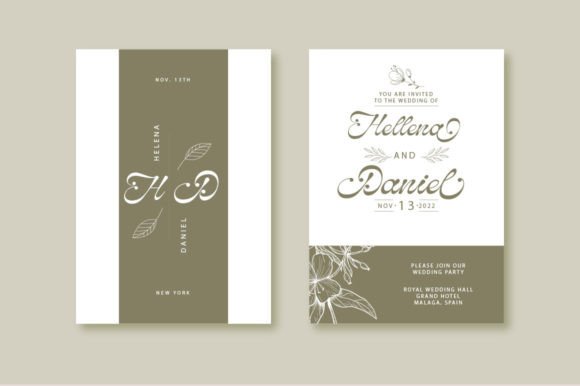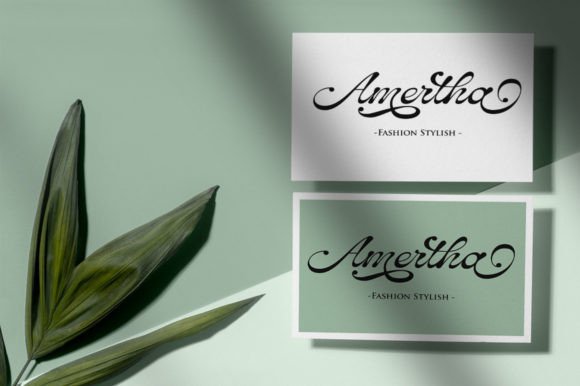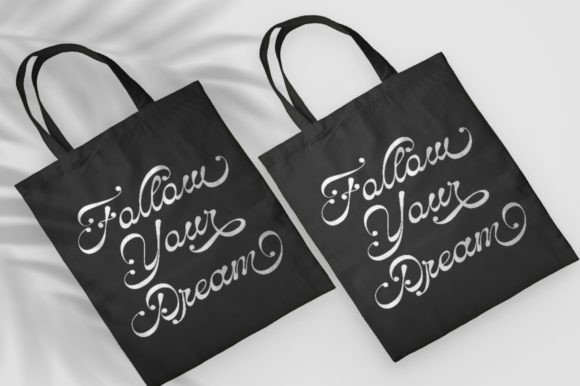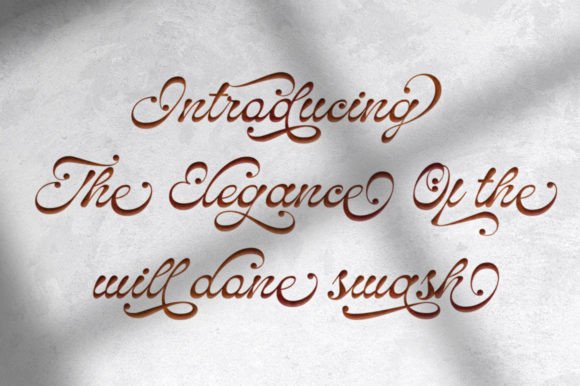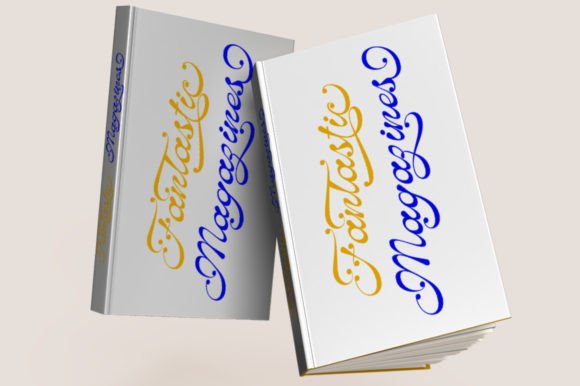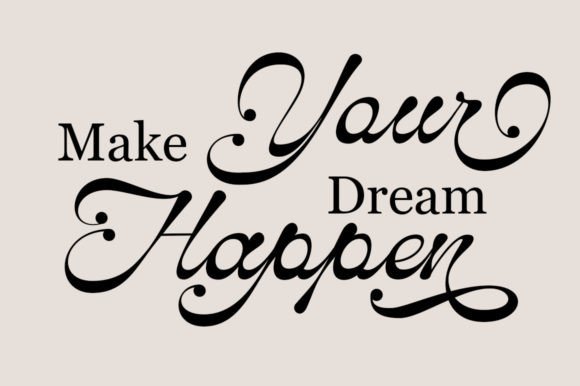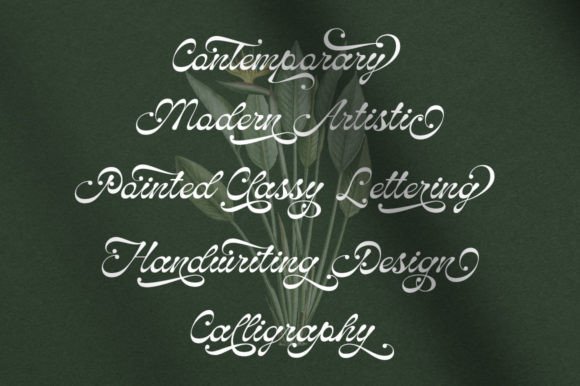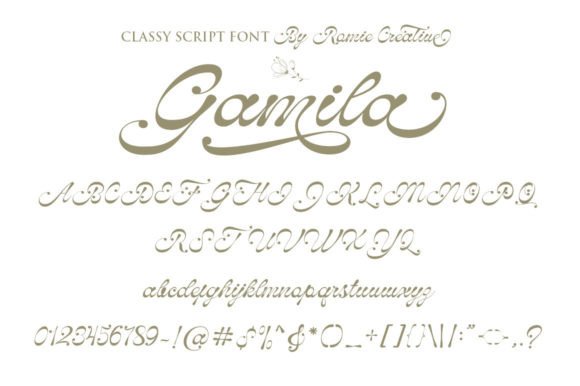
Gamila Font
Gamila is a modern script font inspired by classic handwriting in books. This font will add to the aesthetic that makes your work more attractive.
This font is perfect for your creative projects like logotypes, printed quotes, invitations, cards, product packaging, headers, letterheads, clothing, web design, magazines, books, etc.